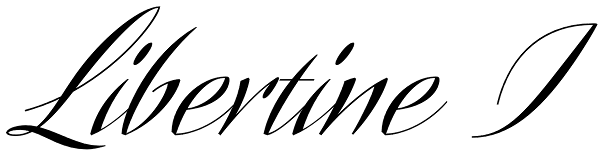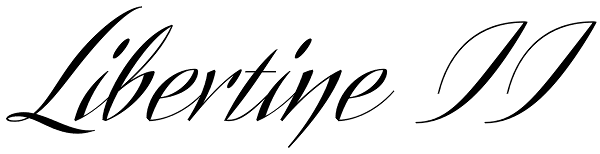
Libertine
Taking its cue from the lettering of 1930s Dutch commercial artist Martin Meijer, Libertine is a script where expert calligraphy and total wrist control are on display. With strokes stopping and starting at very steep angles and extreme contrasts...
Libertine I
Libertine Extras
Libertine II
Libertine III
Libertine Pro